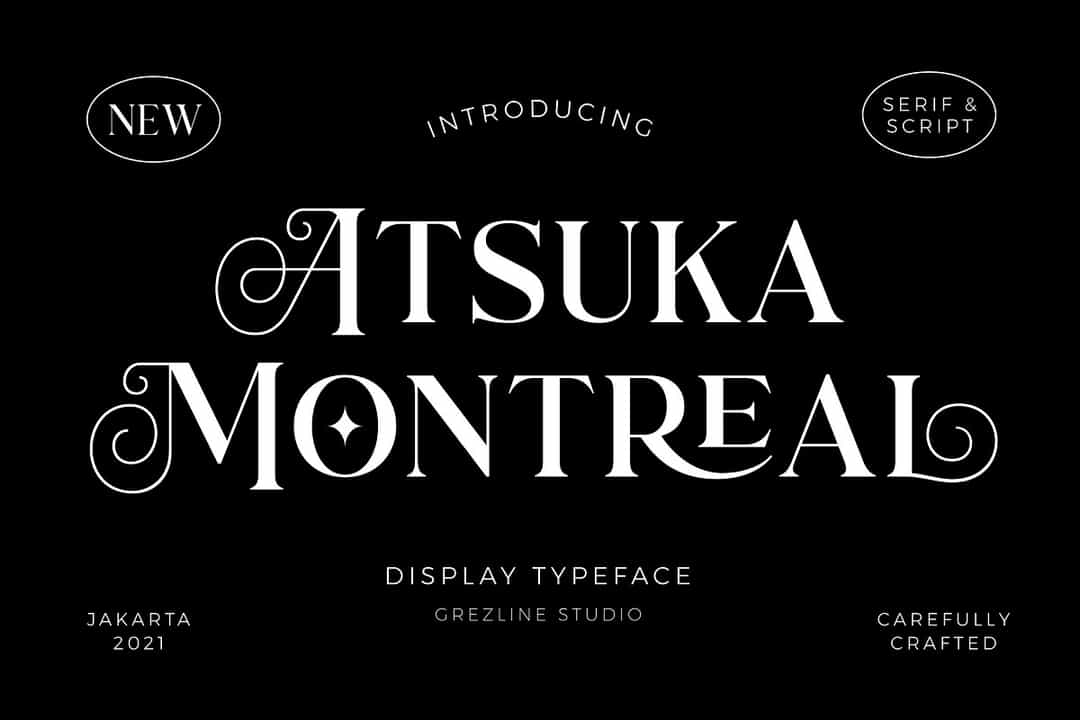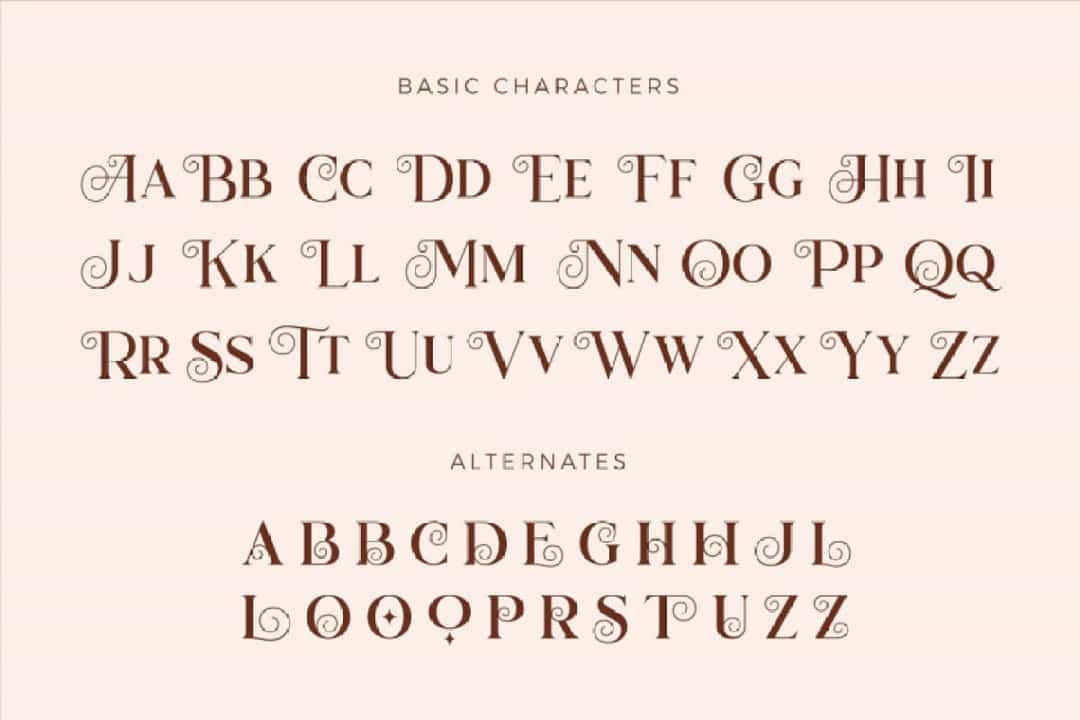
Atsuka Montreal is an elegant e-serif display serif font family with an exquisite and luxury aesthetic, perfect for fashion design projects. The font features distinctive script that makes your work even more captivating and appealing to viewers.